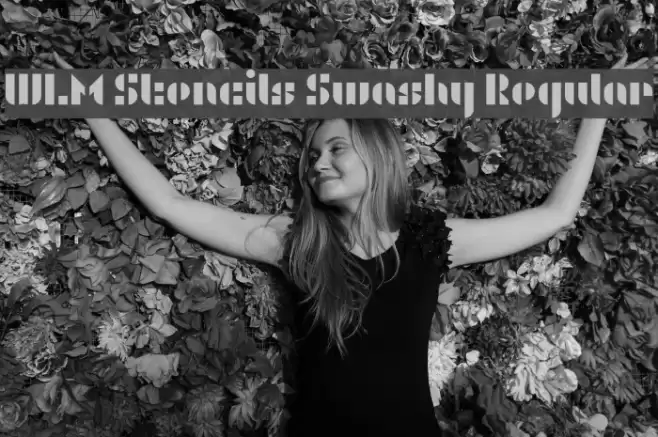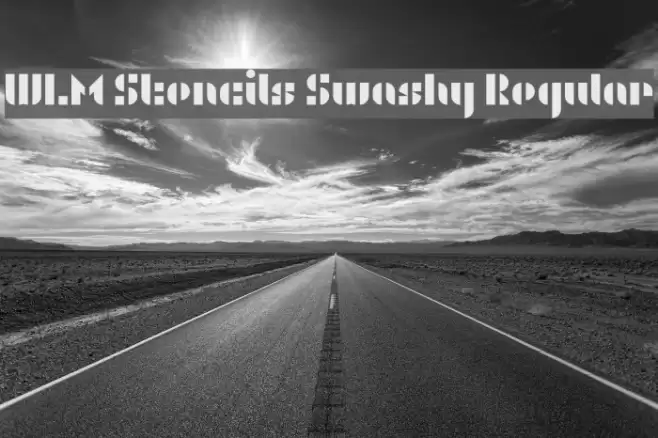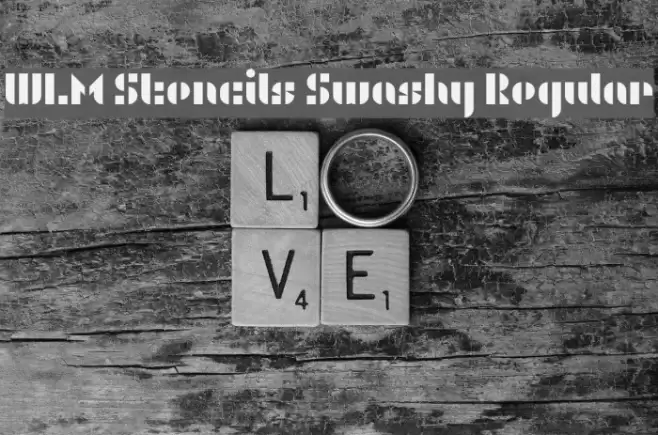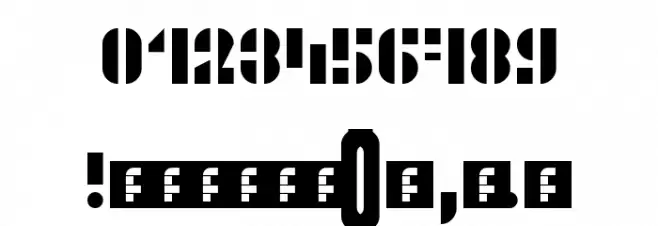
WLM Stencils Swashy Regular Font
WLM Stencils Swashy Regular Description
This font features a bold, stencil-like design with a modern and geometric aesthetic. The uppercase letters are characterized by strong, angular lines and cut-out sections that create a striking visual effect. The lowercase letters maintain the same boldness, with a slightly more rounded appearance that complements the uppercase. Numbers and special characters follow the same design principles, ensuring consistency across all elements. The font's unique style makes it ideal for attention-grabbing headlines and display purposes.
A bold, stencil-inspired font with geometric and modern characteristics from Uncategorized fonts.